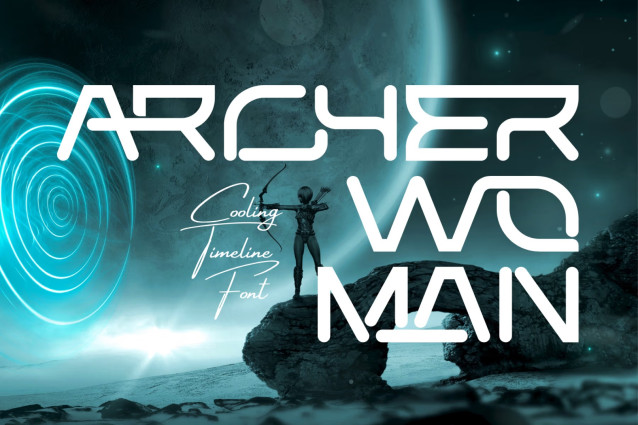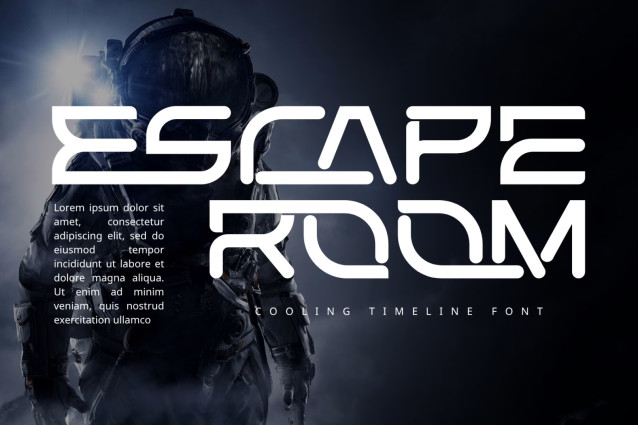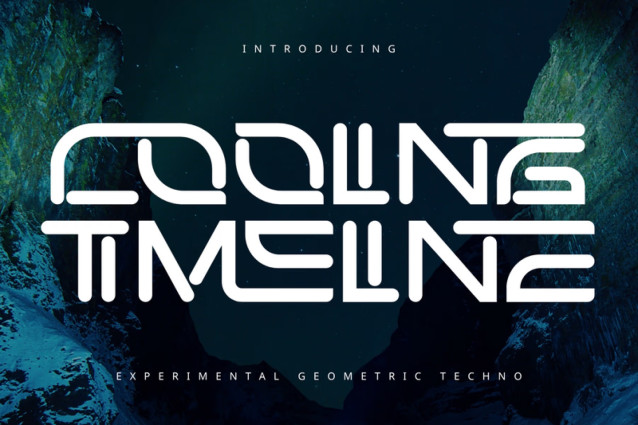
Cooling Timeline Demo Font
Cooling Timeline – Futuristic Font is a futuristic geometric display font designed with sleek monoline strokes and a clean modular structure. Inspired by advanced technology, digital interfaces, and space-age aesthetics, this typeface delivers a bold yet minimalist visual experience. Featuring rounded corners, smooth terminals, and precisely constructed geometric forms, Cooling Timeline creates a distinctive sci-fi appearance while maintaining excellent readability. Its balanced proportions and contemporary design make it ideal for projects that demand a modern and forward-thinking identity.